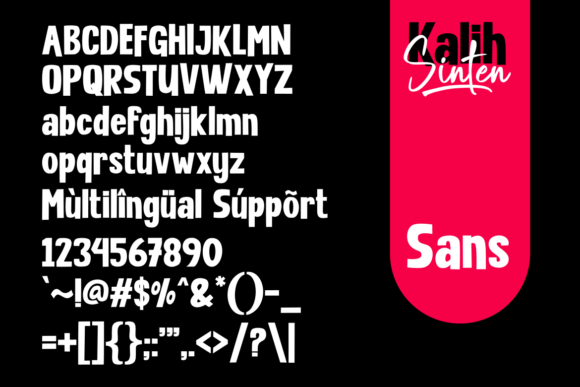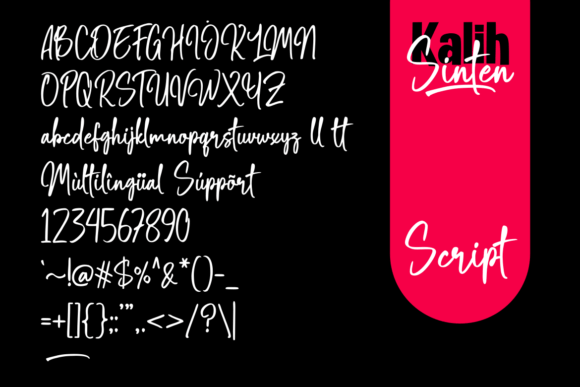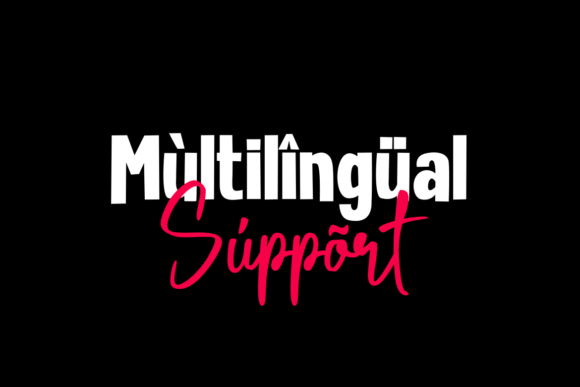
Introduction to Kalih Sinten Duo Font
Kalih Sinten is a stylish and cool font duo (script and sans) masterfully designed to become a true favorite.
Key Features of Kalih Sinten Duo Font
Why Choose Kalih Sinten Duo Font?
Kalih Sinten Duo Font offers exceptional quality and versatility, making it a valuable addition to your design toolkit. Whether you’re creating for personal projects or commercial use, Kalih Sinten Duo Font delivers professional results.